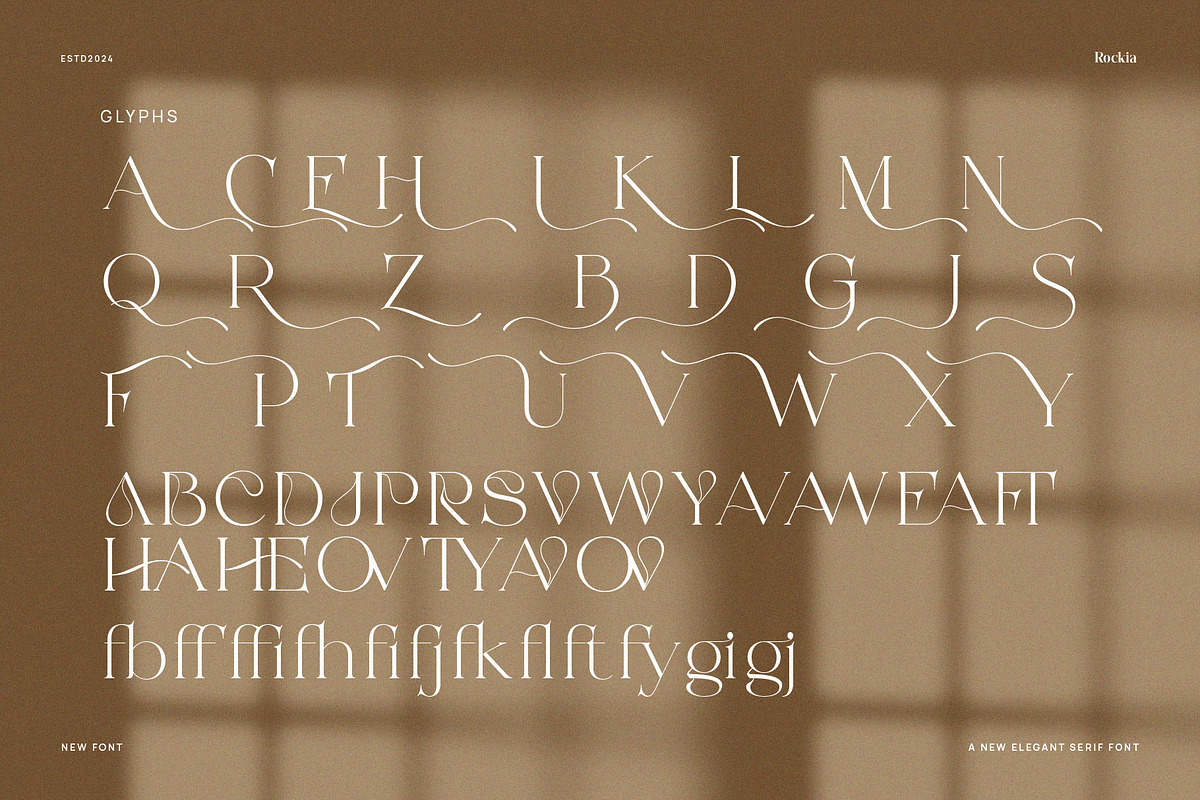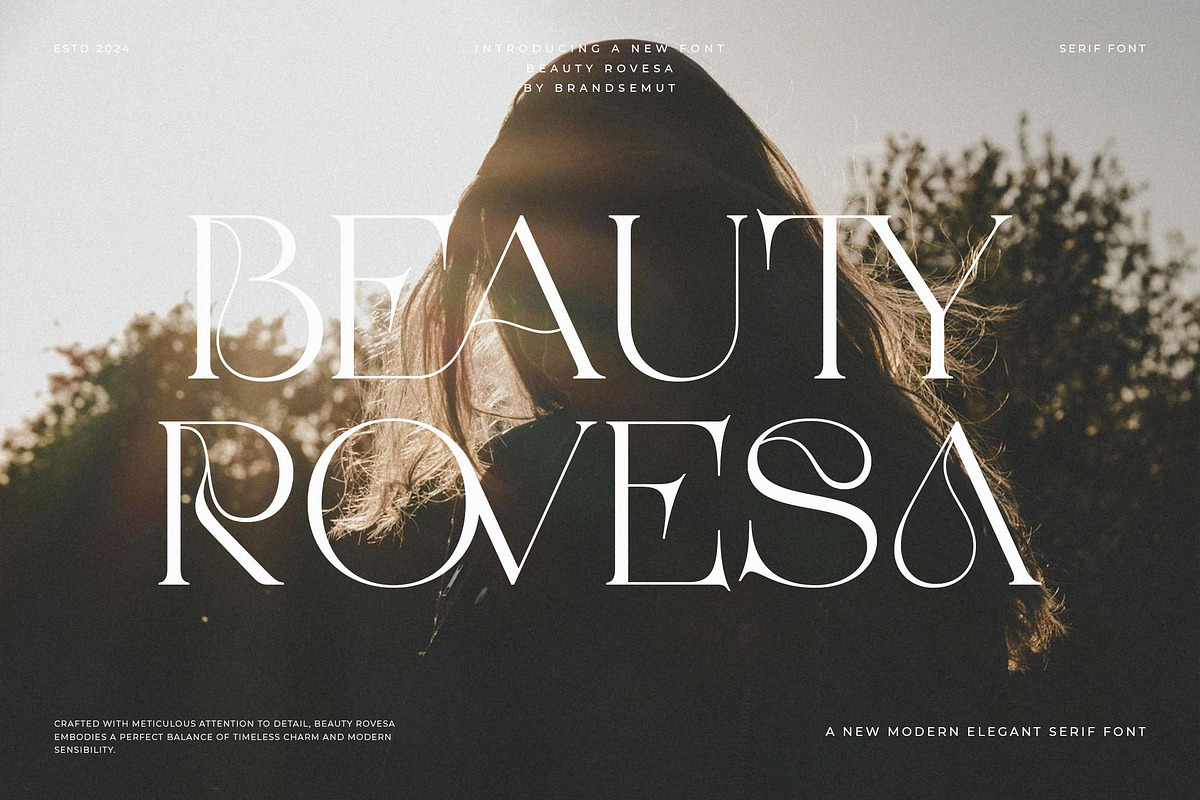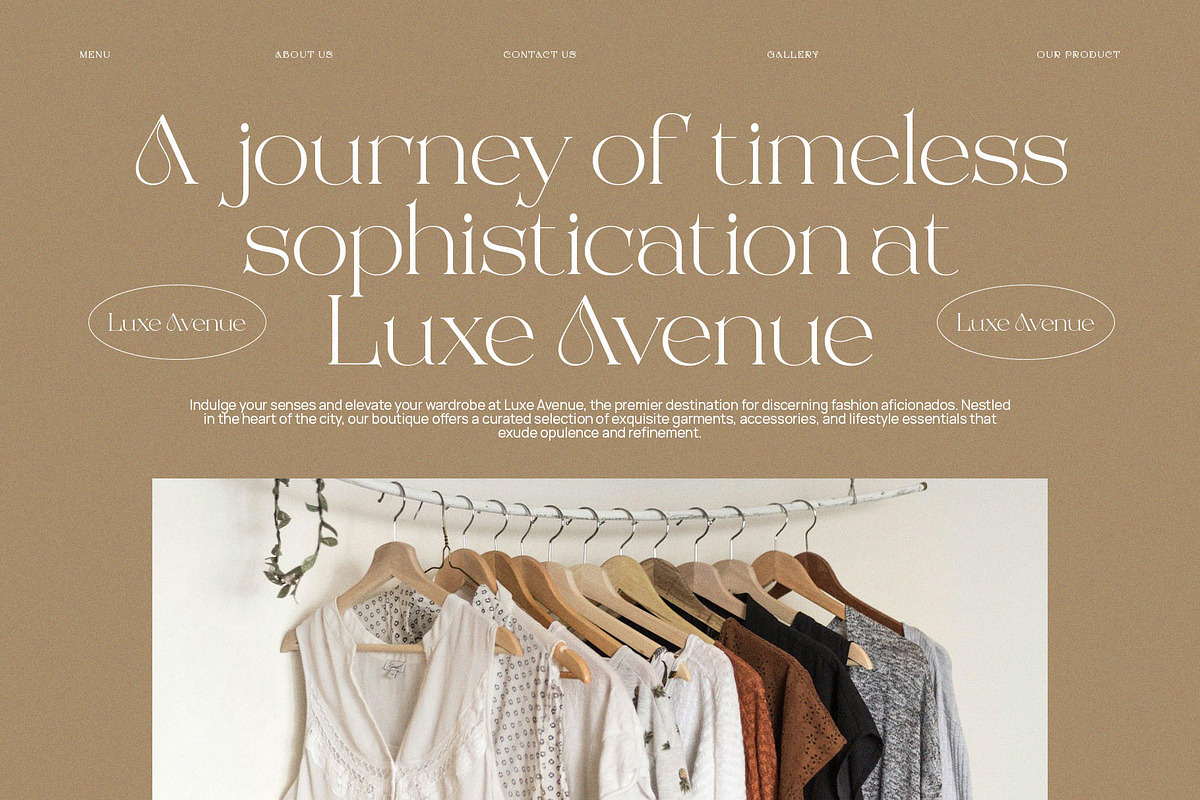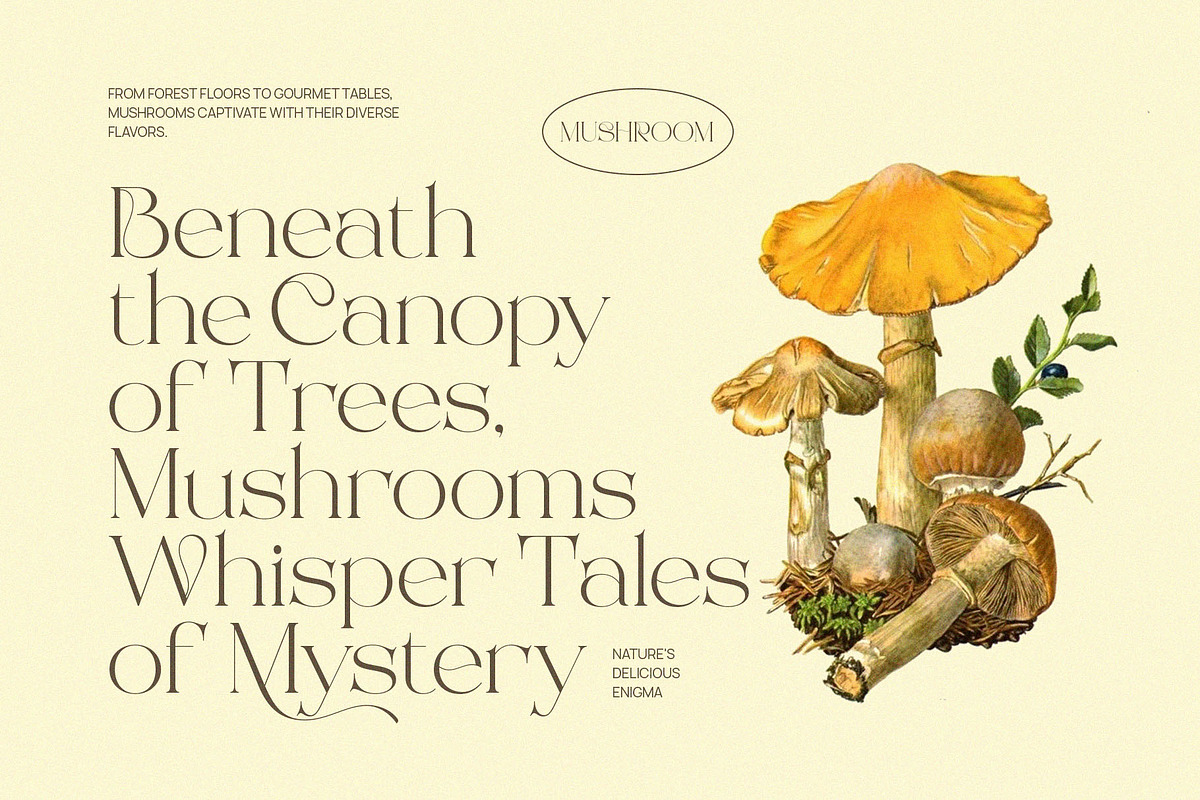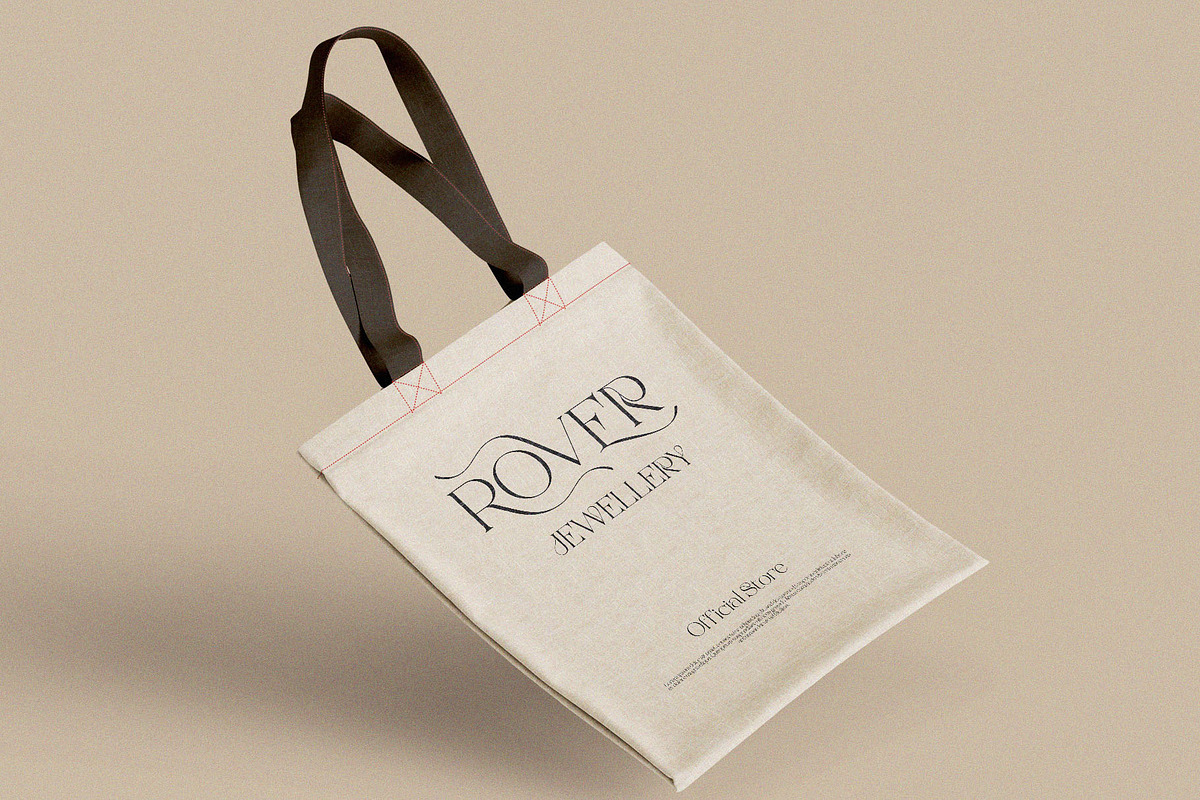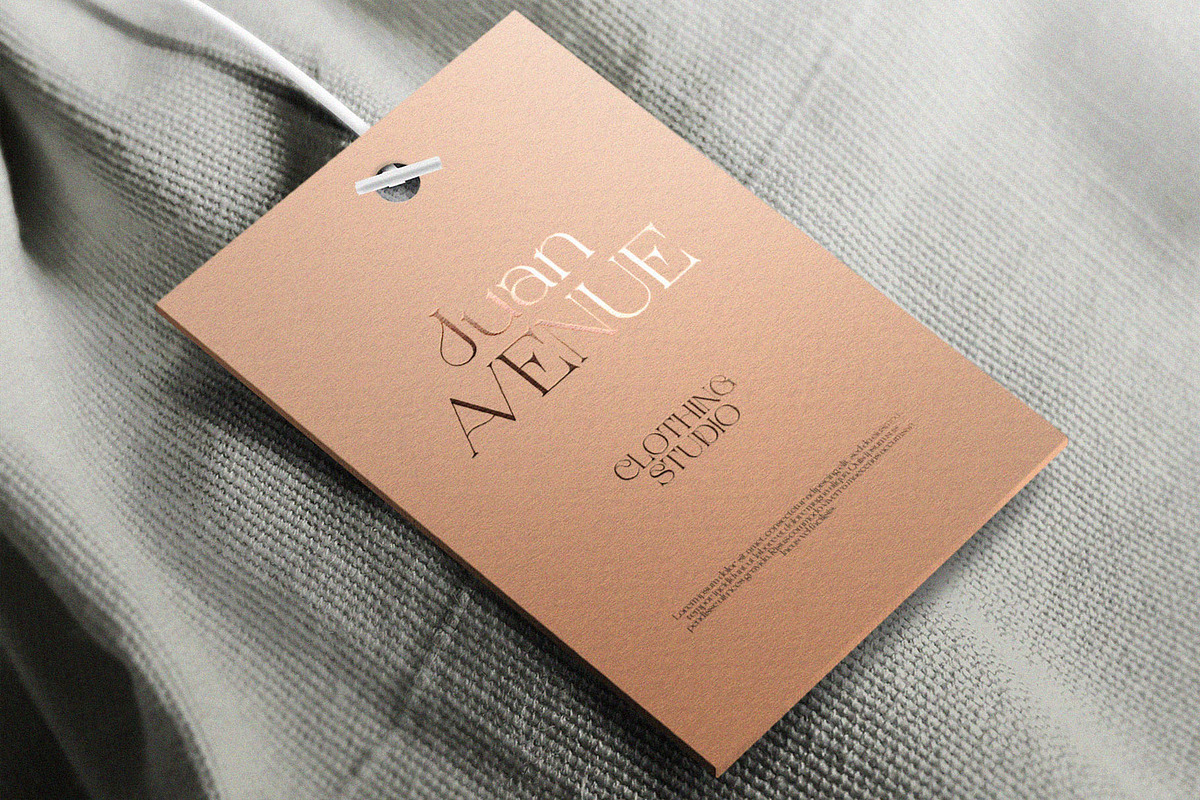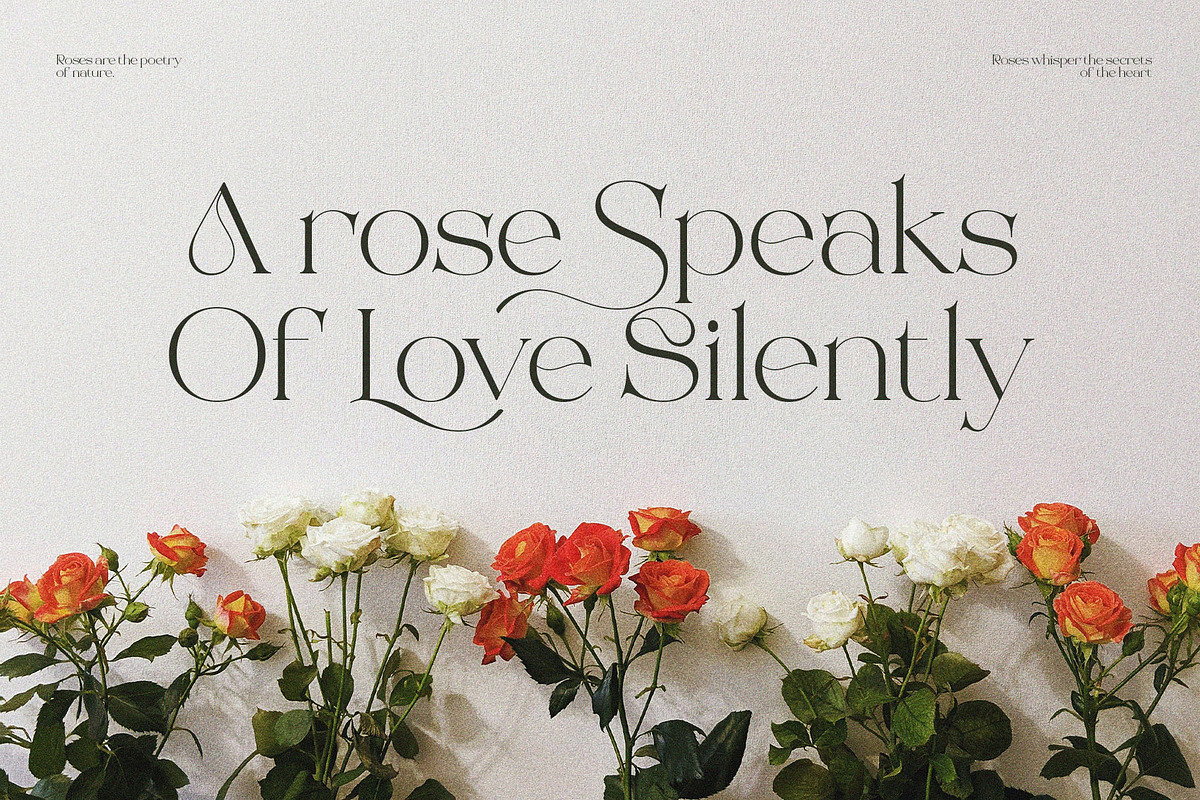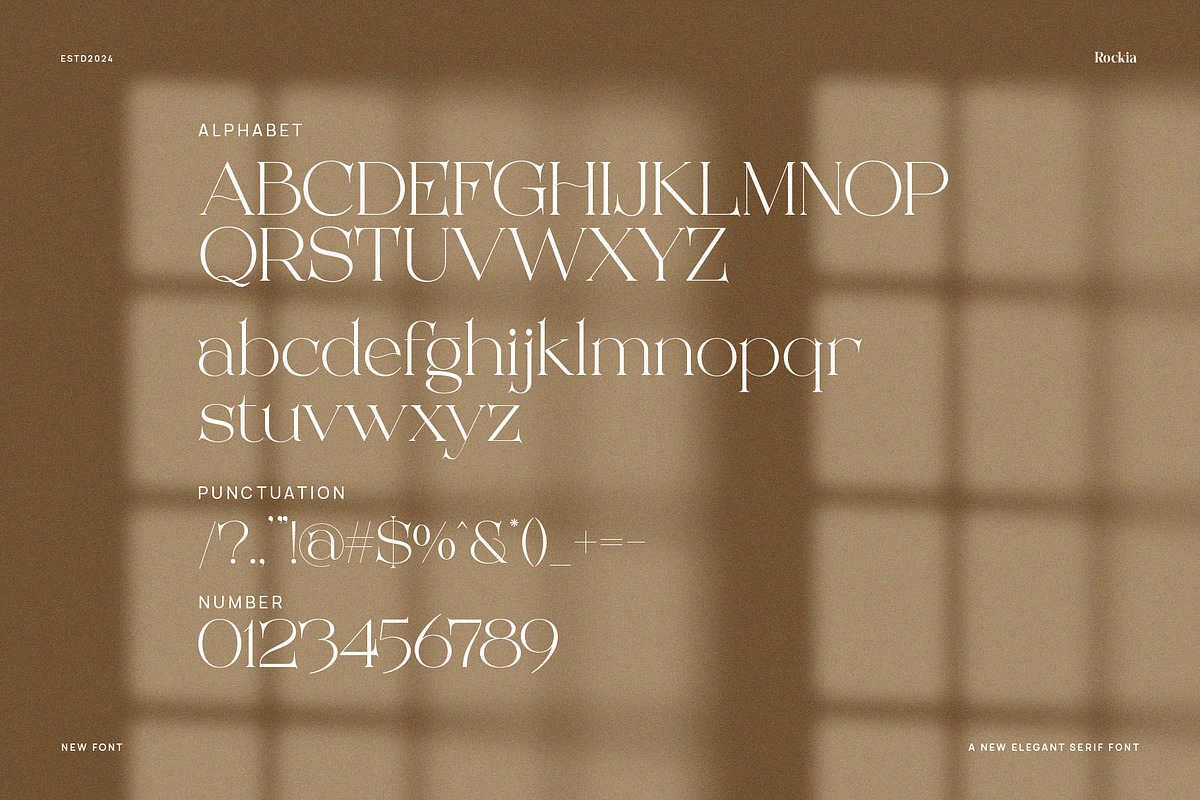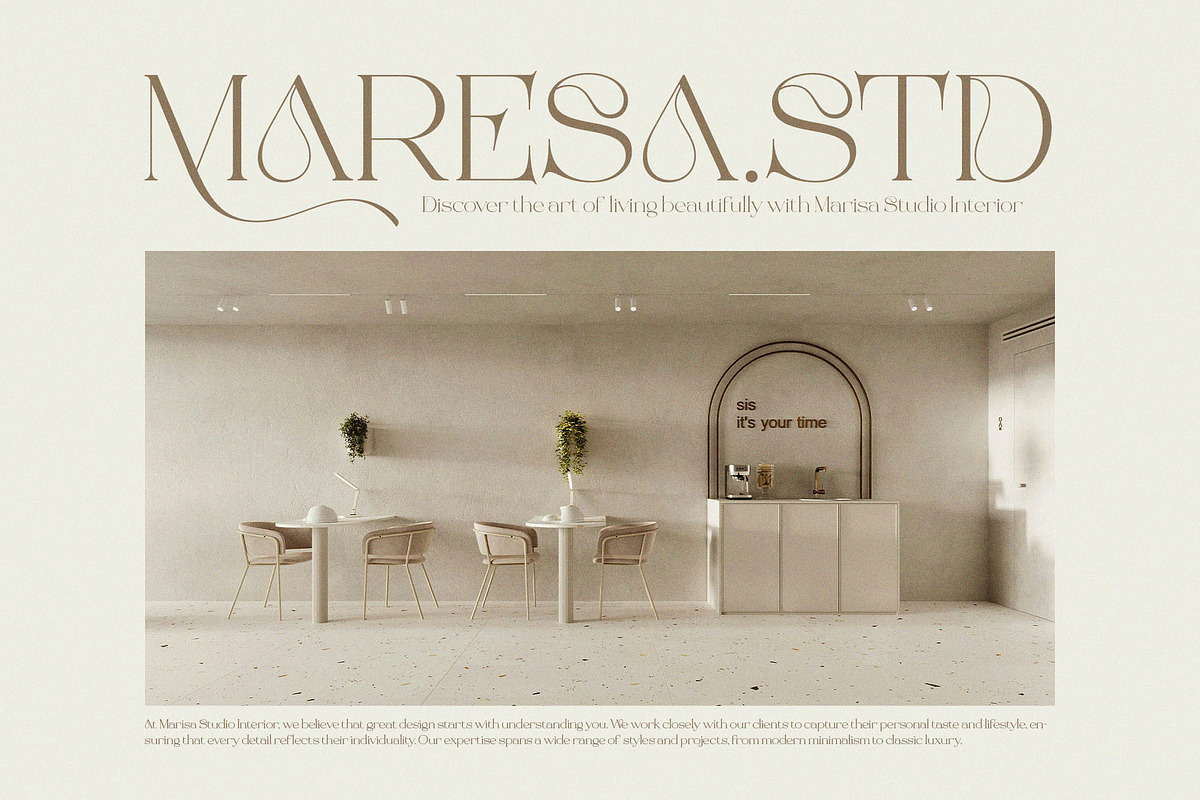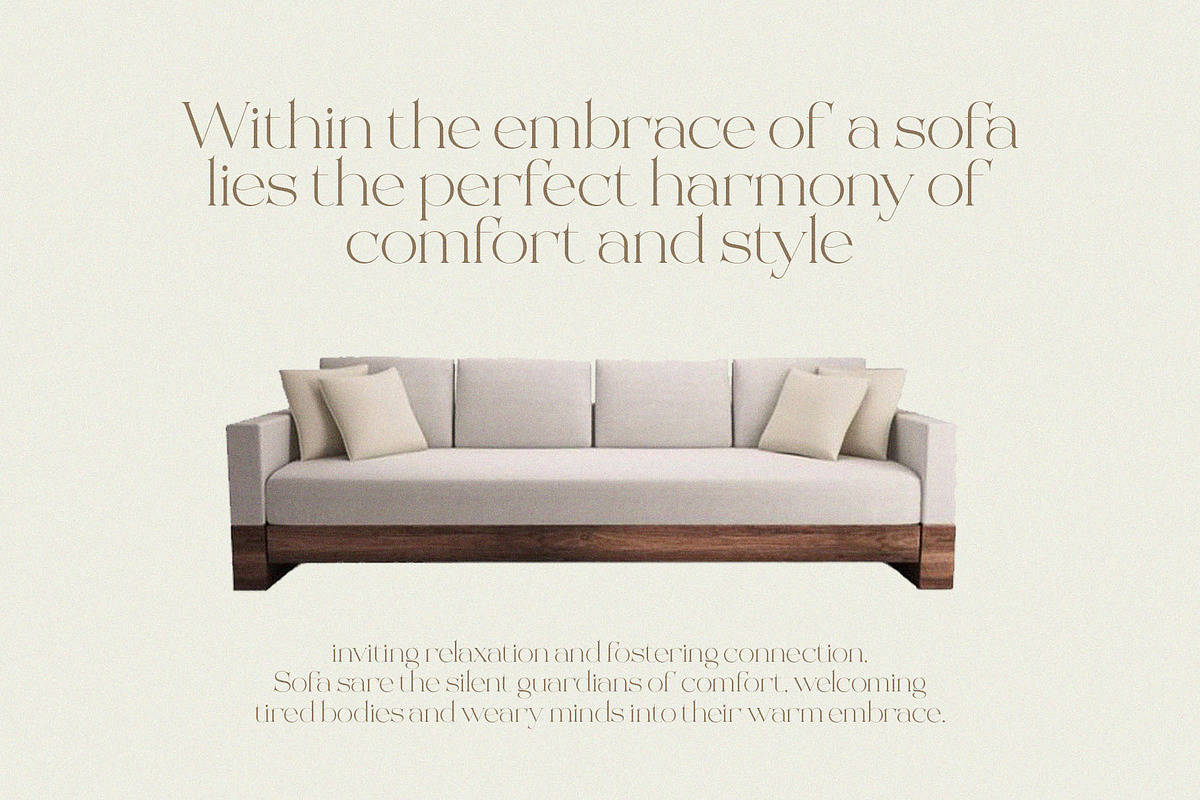
Beauty Rovesa Elegant Display Serif
Introducing Beauty Rovesa Elegant Display Serif. Beauty Rovesa is a elegant, classy and modern display serif, best used as a display for headings, logos, branding, magazines, product packaging and invitations. Beauty Rovesa equipped with Ligature and many Alternates and come with clean lines and smooth curves give any project an extra touch of class.